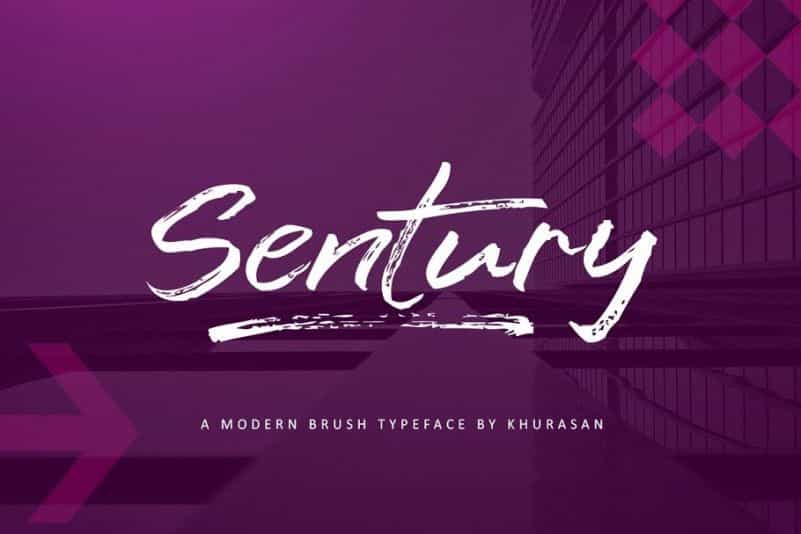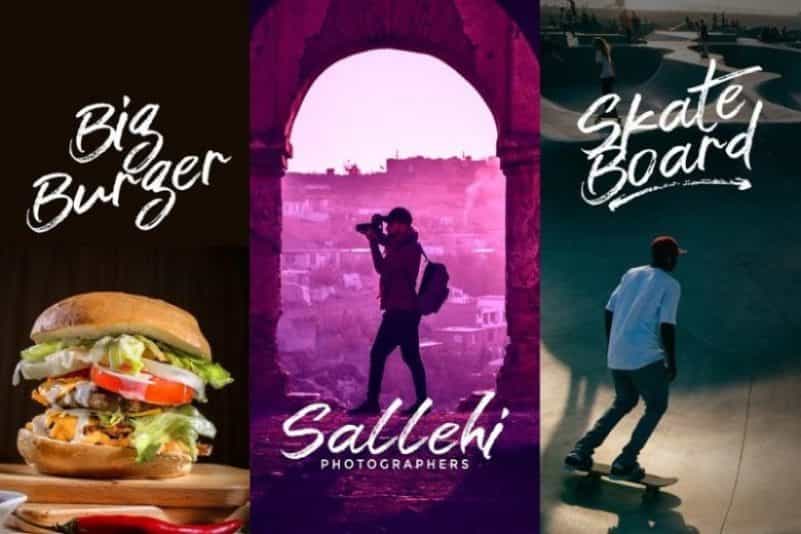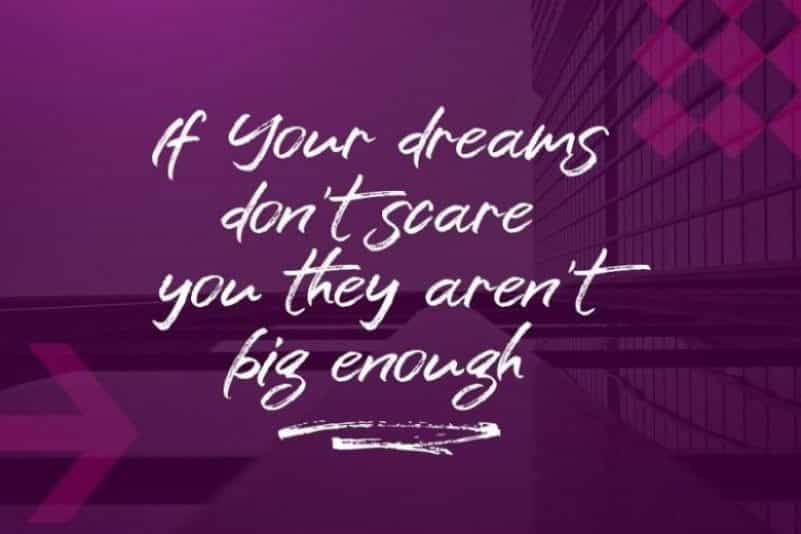
Sentury is a funny-looking hand-written font, full of life and curves. The font was designed with the help of quick strokes to obtain natural brush textures, and thus it gave a digital world an appearance that is quite similar to nature. Apply Sentury for logos, branding, social media, product packaging and advertisements.